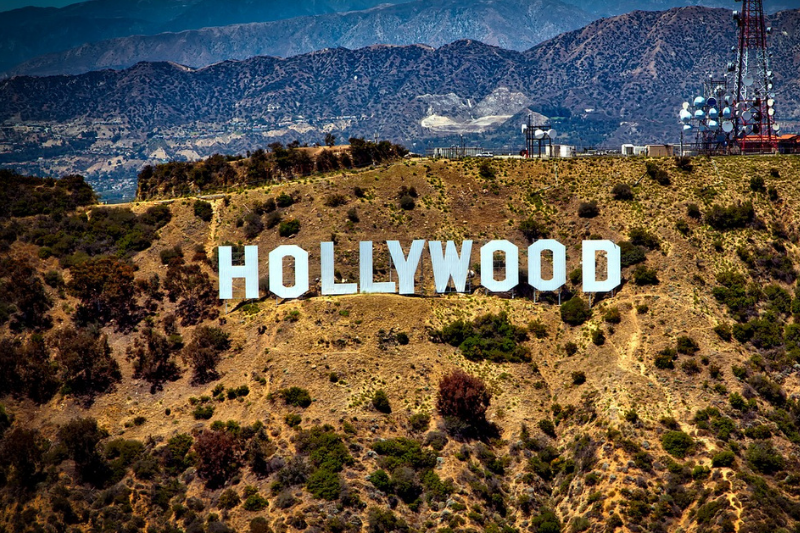
Hollywood Font Generator
About the Hollywood Font Generator
The Hollywood Sign is an iconic symbol of the entertainment industry and the glamour of Hollywood. Its bold and distinctive typography has become synonymous with the glitz and allure of the movie industry.
About Hollywood Font
The font in Hollywood Sign is " SF Hollywood Hills Font." It features bold capital letters with sharp edges and clean lines. The letterforms are elongated, giving them a sense of grandeur and elegance. The SF Hollywood Hills Font captures the essence of the entertainment industry, evoking a sense of drama and style. Its iconic design has made it instantly recognizable and closely associated with the glamour of Hollywood.
Hollywood Sign Font Generator
For fans and designers who want to incorporate the Hollywood Sign style into their projects, the Hollywood Sign Font Generator is a fantastic tool. This online generator allows users to create custom typography in the style of the Hollywood Hills font. Users can generate Hollywood-inspired letterforms by inputting their desired text and experimenting with different variations, sizes, and effects.
The Hollywood Sign Font Generator provides a platform for users to add a touch of Hollywood magic to their creations. The Hollywood Sign Font Generator is also a valuable resource for designers working on Hollywood-themed projects.